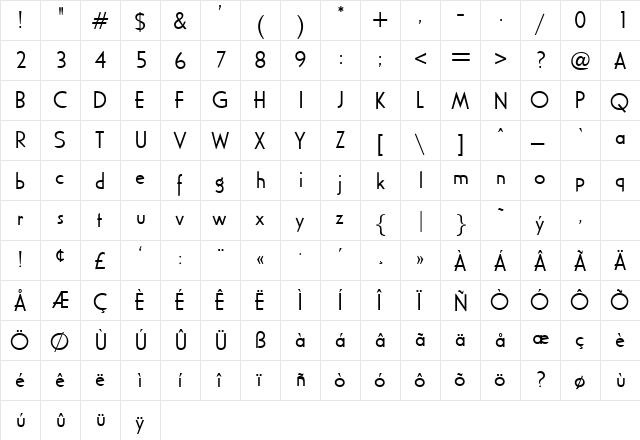
Consul Regular Font Preview
Consul Regular
Consul Regular Font Details
Design Context for Consul Typeface
Consul takes a measured approach to typography — its balanced proportions and neutral character make it a reliable workhorse for both digital and print work.